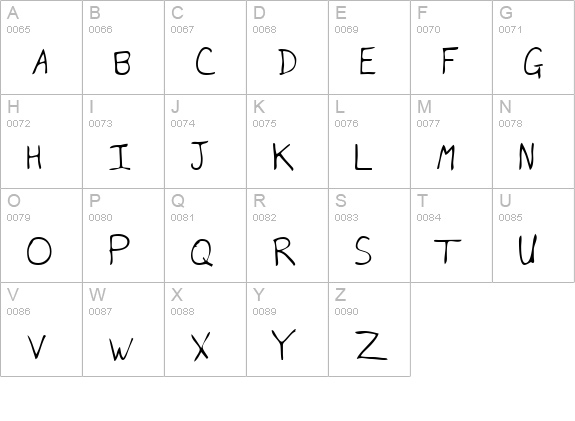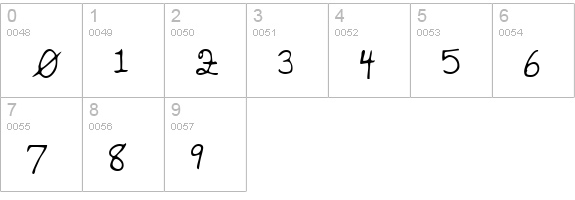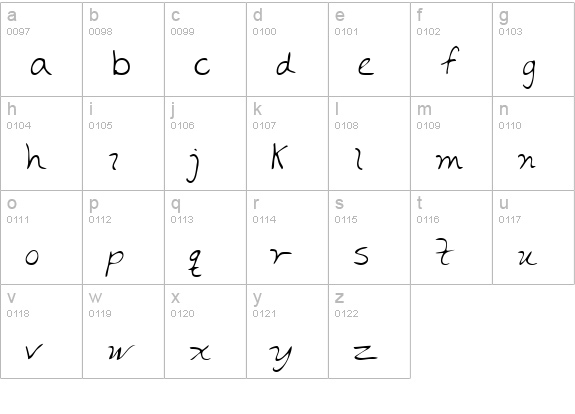
LuanasHand Regular Font Details
LuanasHand Regular is the standard, neutral variant in the LuanasHand typeface family \xE2\x80\x94 well suited to general body text, paragraphs, and standard typographic work.
LuanasHand Regular font is a charming and whimsical typeface that exudes a sense of creativity and playfulness. With its hand-drawn appearance and flowing lines, this font is perfect for adding a personal touch to your designs. Whether you are working on invitations, posters, or social media graphics, LuanasHand Regular will bring a unique and artistic flair to your projects. The best part? LuanasHand Regular is completely free to download at FontsMarket.com. You can easily access this delightful font and use it in your commercial and personal projects without any restrictions. Embrace the beauty and character of LuanasHand Regular and let your creativity shine with this fantastic typeface.